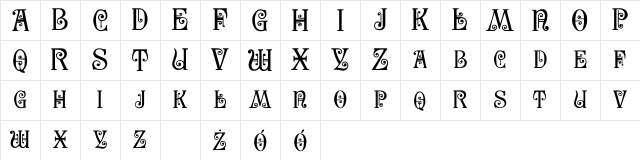
SecesjaPL Regular Free Font
SecesjaPL Regular
Foundry: flashFON
Designer: bartek nowak
Design Context for SecesjaPL
SecesjaPL is a composed and adaptable typeface that performs quietly and consistently across a wide range of design contexts.